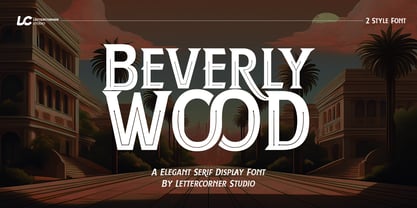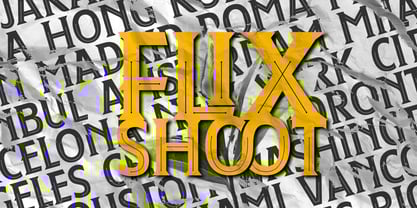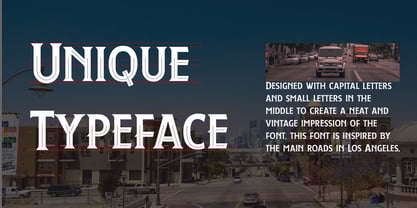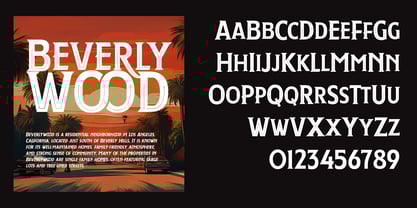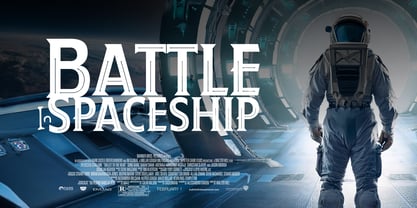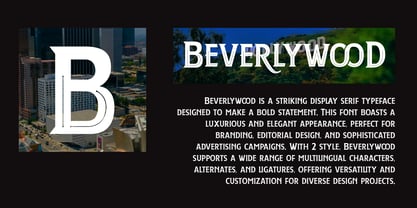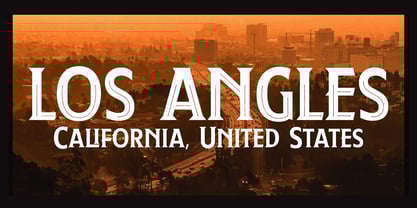
Berverlywood
by Mevstory Studio
The Berverlywood Font Family was designed by Muhammad Afif Ersya and published by Mevstory Studio. Berverlywood contains 4 styles and family package options. More about this family
Beverlywood is a striking display serif typeface designed to make a bold statement. This font boasts a luxurious and elegant appearance, perfect for branding, editorial design, and sophisticated advertising campaigns. With 2 style, Beverlywood supports a wide range of multilingual characters, alternates, and ligatures, offering versatility and customization for diverse design projects.
Designers: Muhammad Afif Ersya
Foundry: Mevstory Studio